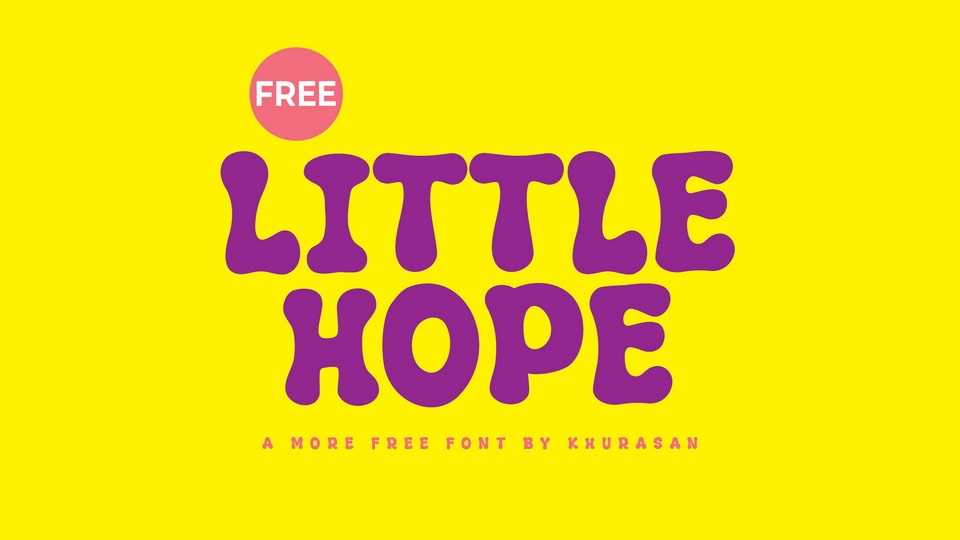
Download Little Hope font, a bubbly and expressive display typeface that radiates positivity from every curve. Its soft, wavy letterforms feel almost liquid, as if gently melting into place, creating a friendly and fun appearance.